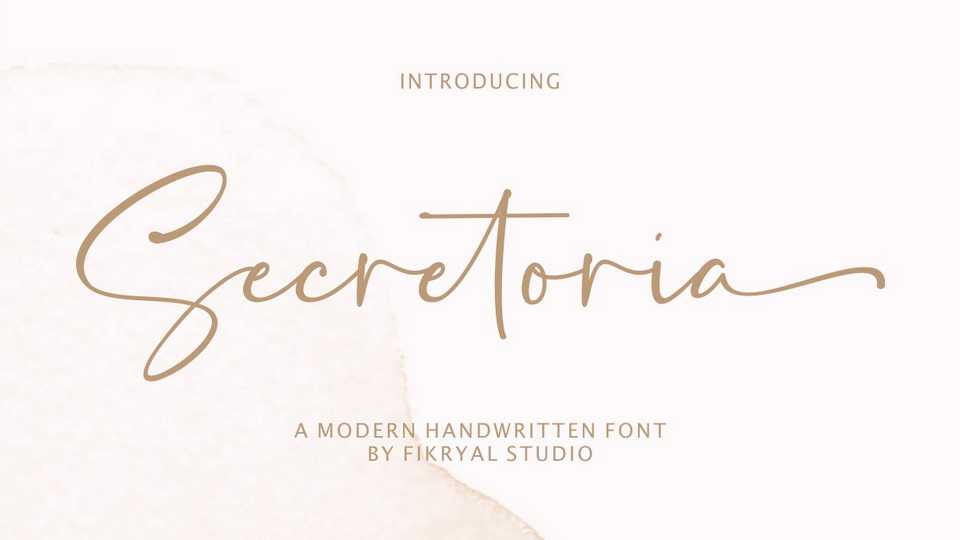
Download Secretoria font, a modern handwritten typeface, very casual and suitable for your various design needs. Secretoria is perfect for logo, branding, title, social media, photography watermark and more.
Designer: Fikry Alif